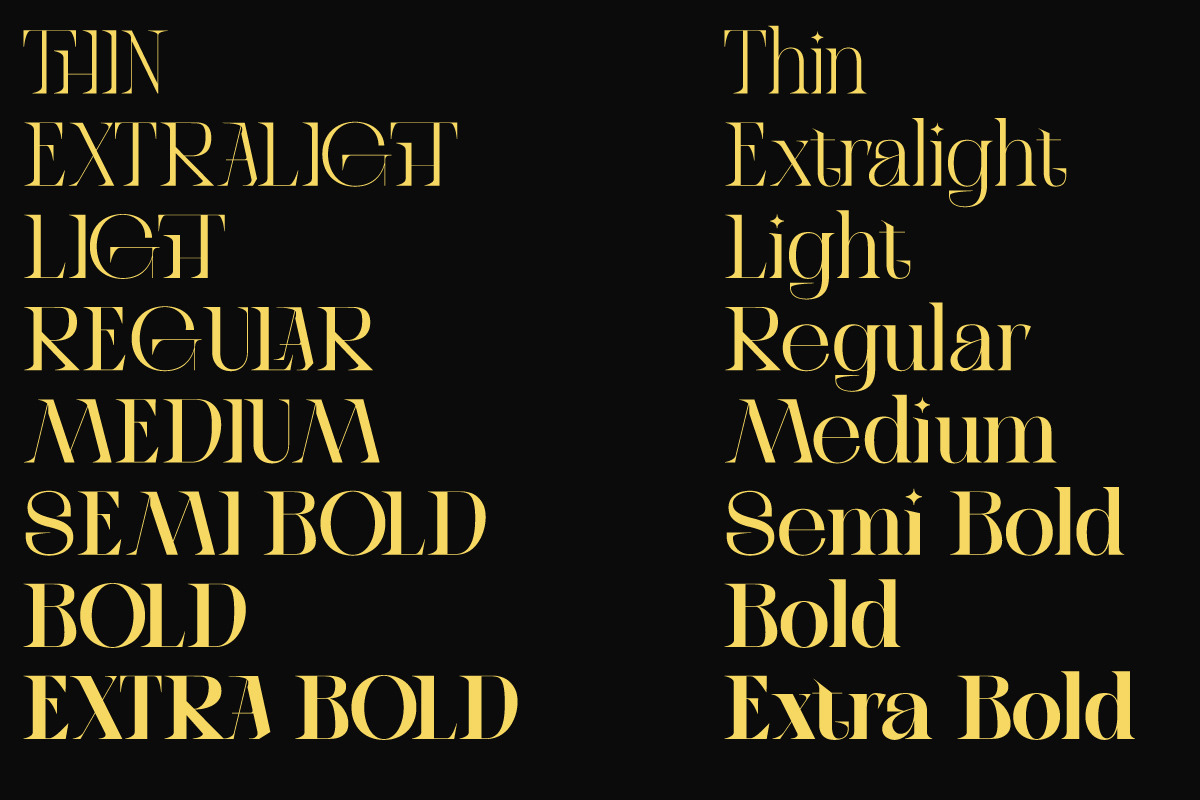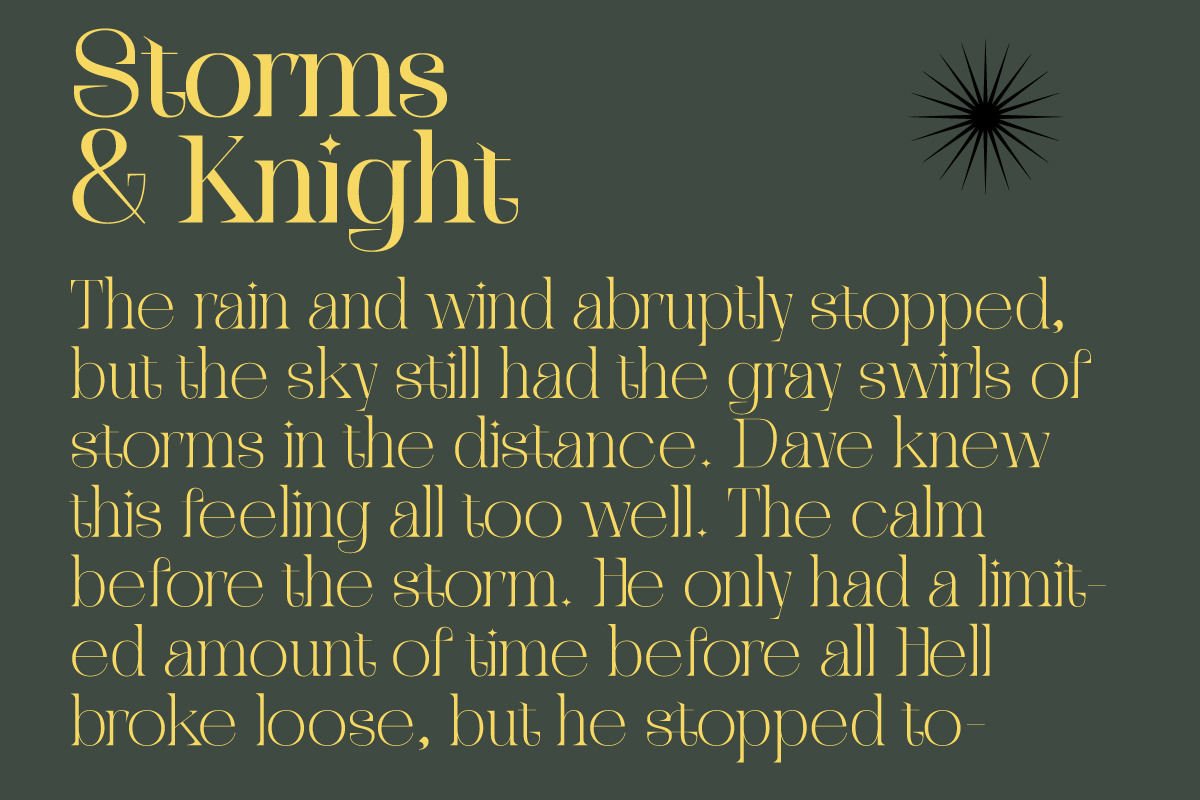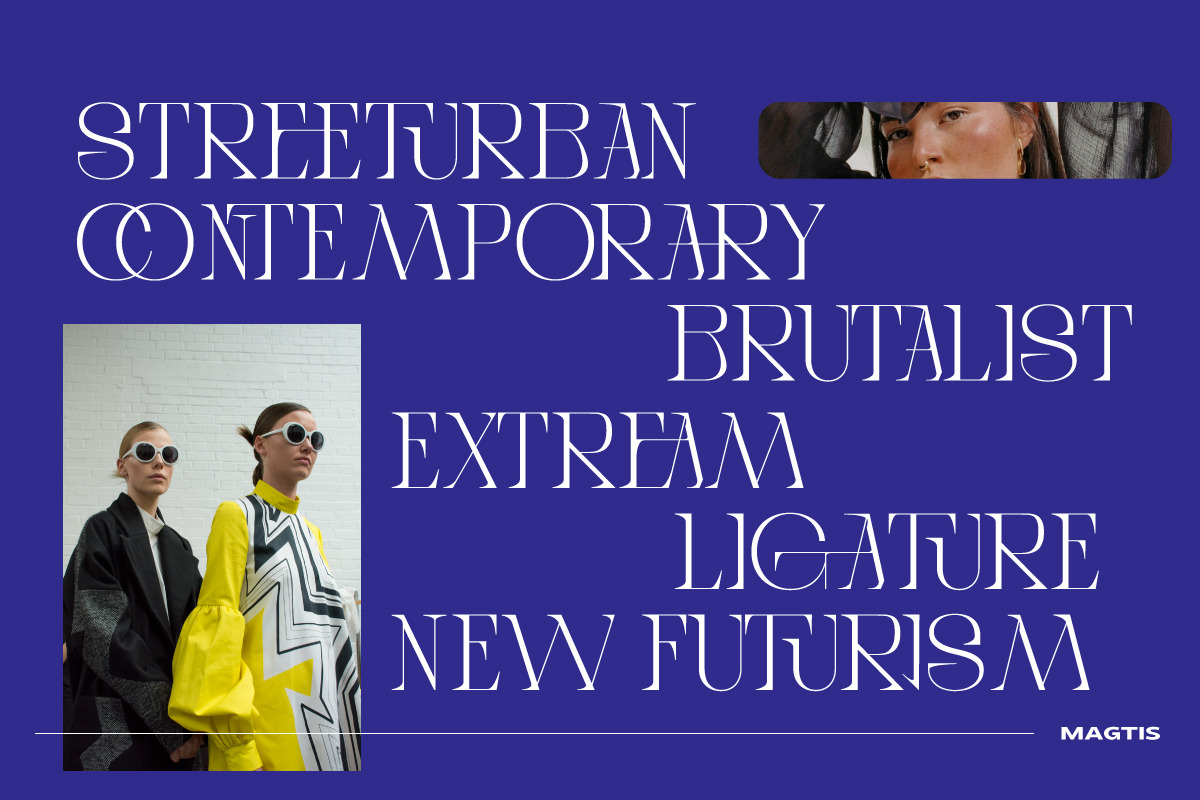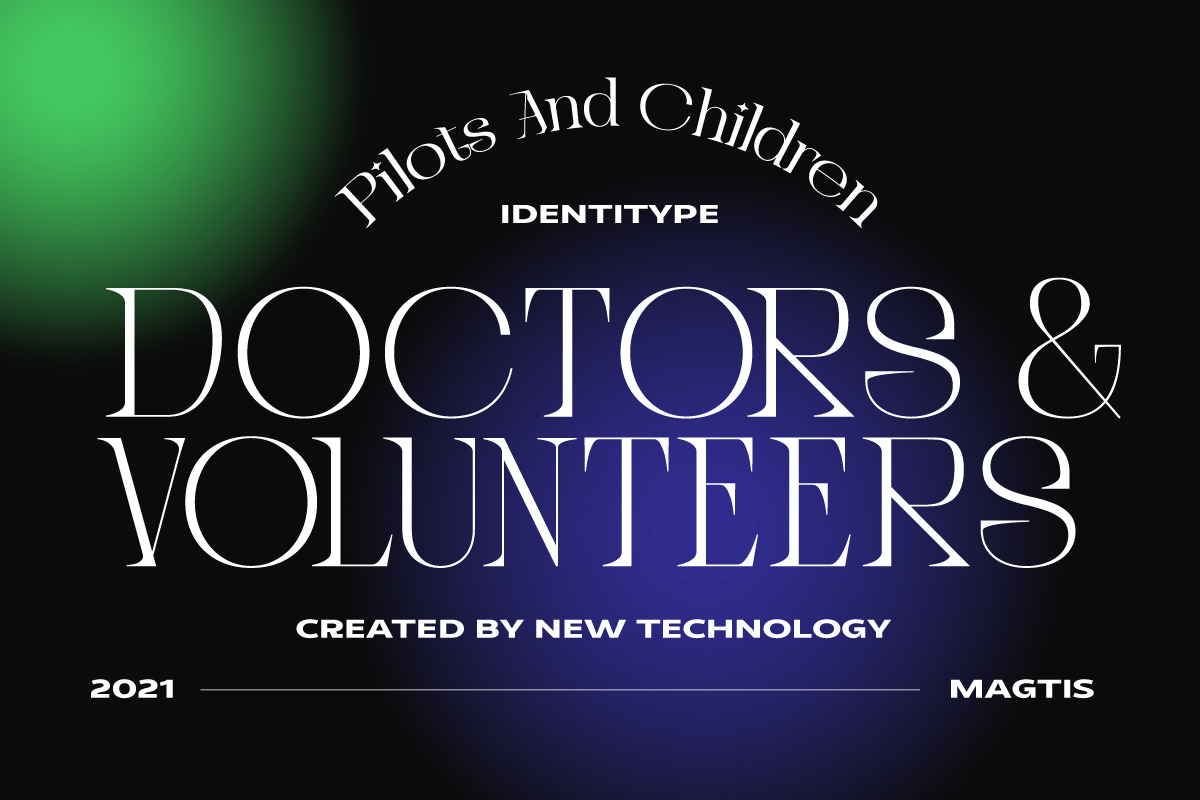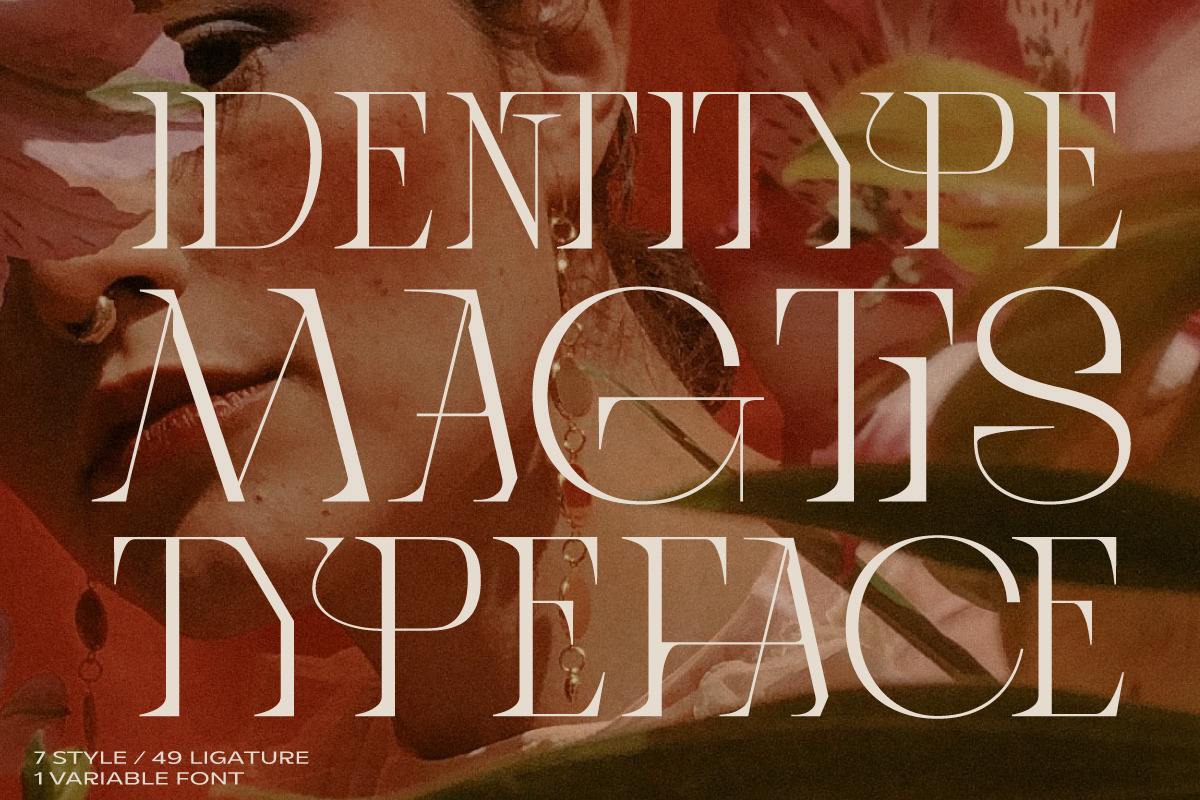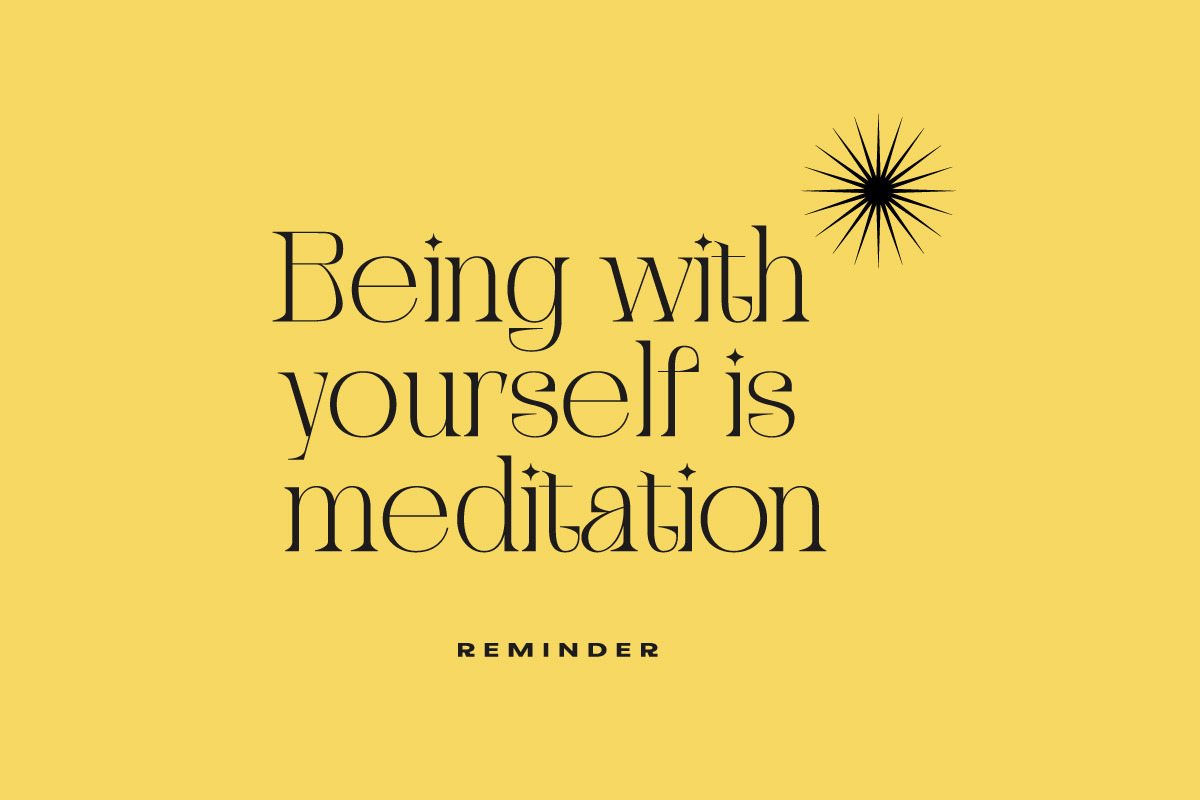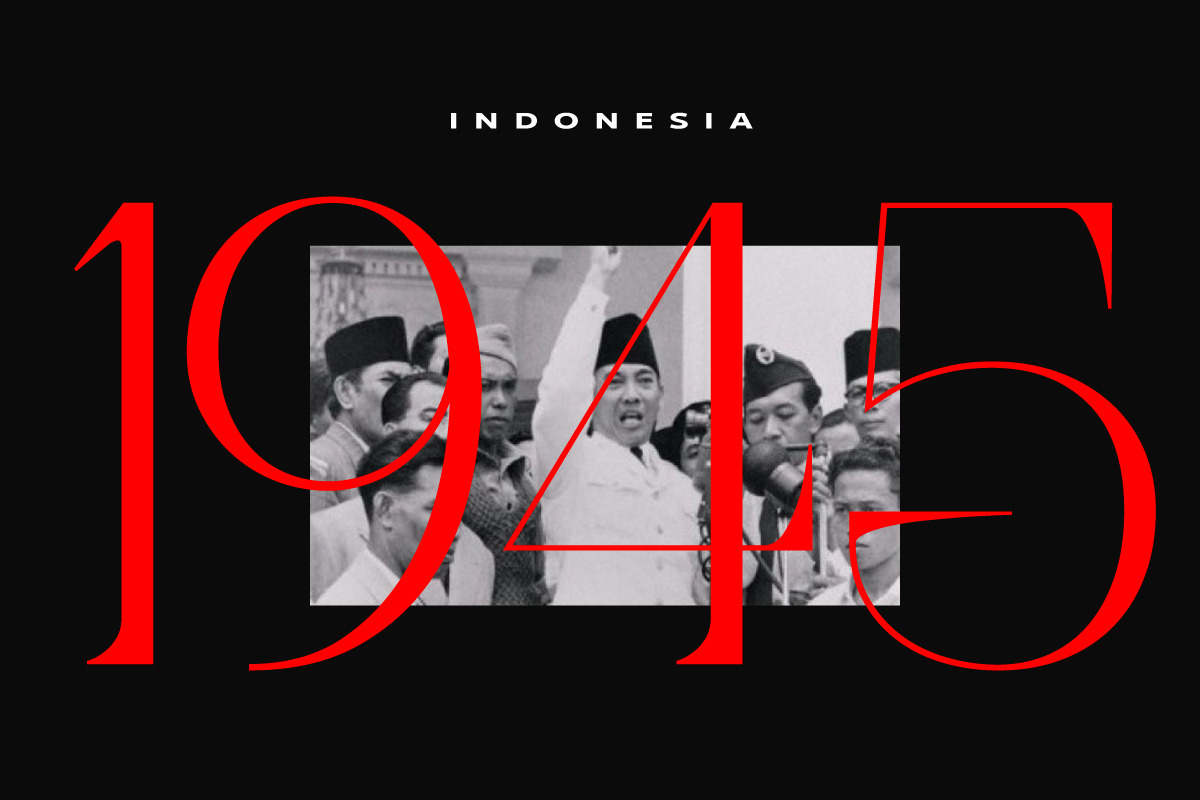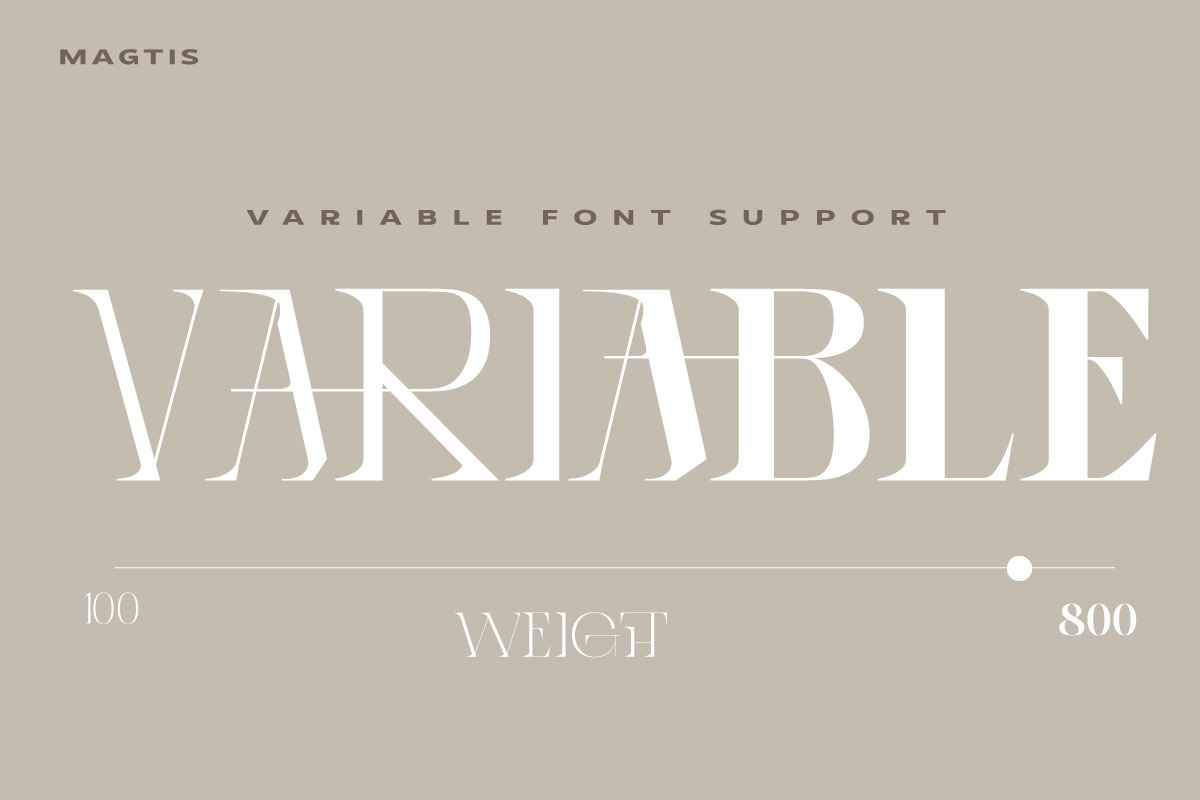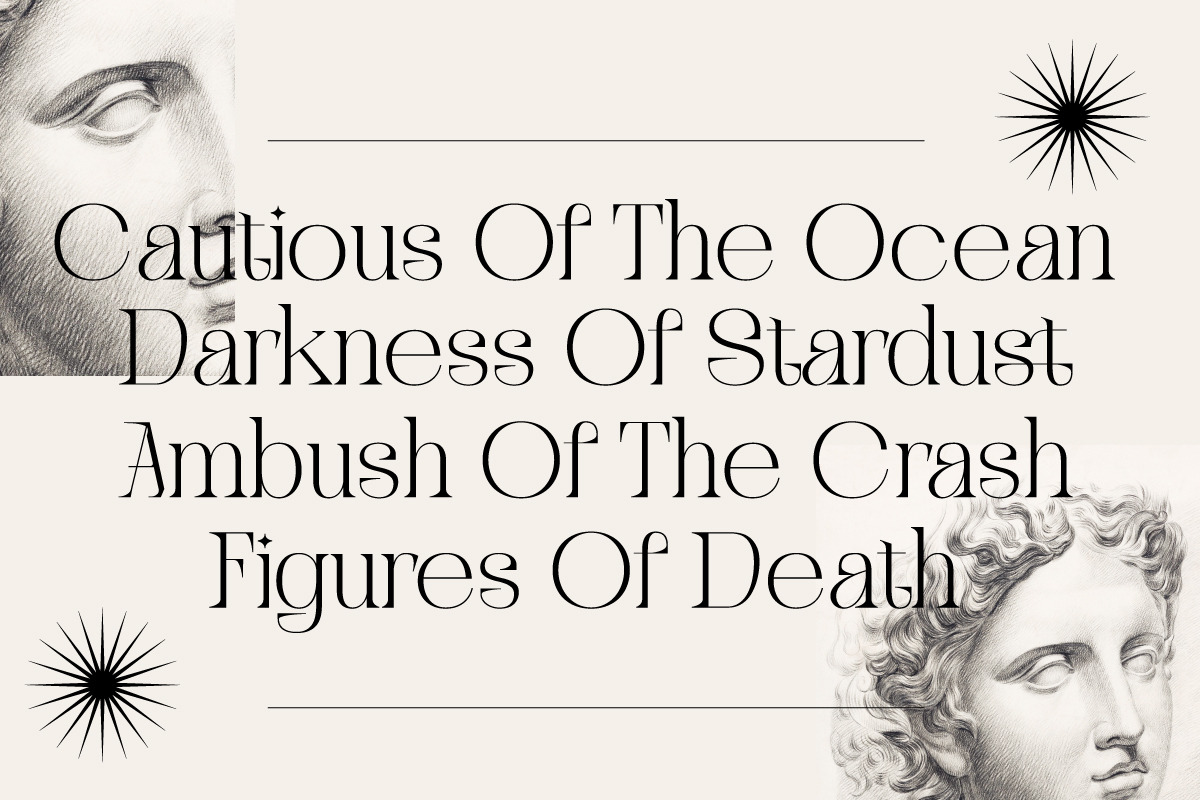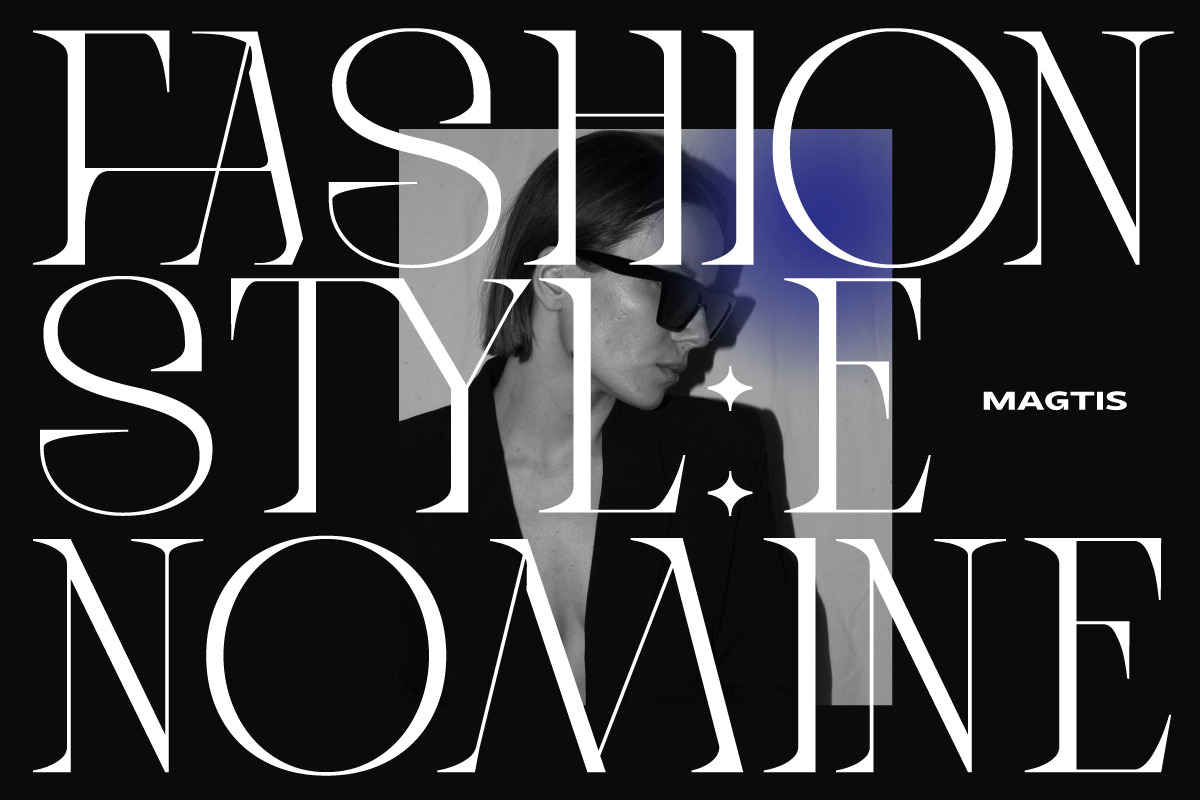
Magtis Display Font Family
Magtis is a standout display font that is an ode to Contrast Serif typography in present day. It's elaborate curves and unique shapes make it perfect for headings, logos & wedding invitations. Cigra is all class so if you want a stylish font that is guaranteed to draw the eye, then this is it!
- Hundred of glyphs
- Alternates and Ligatures
- Fonts include Multilingual Support
- Extended Latin